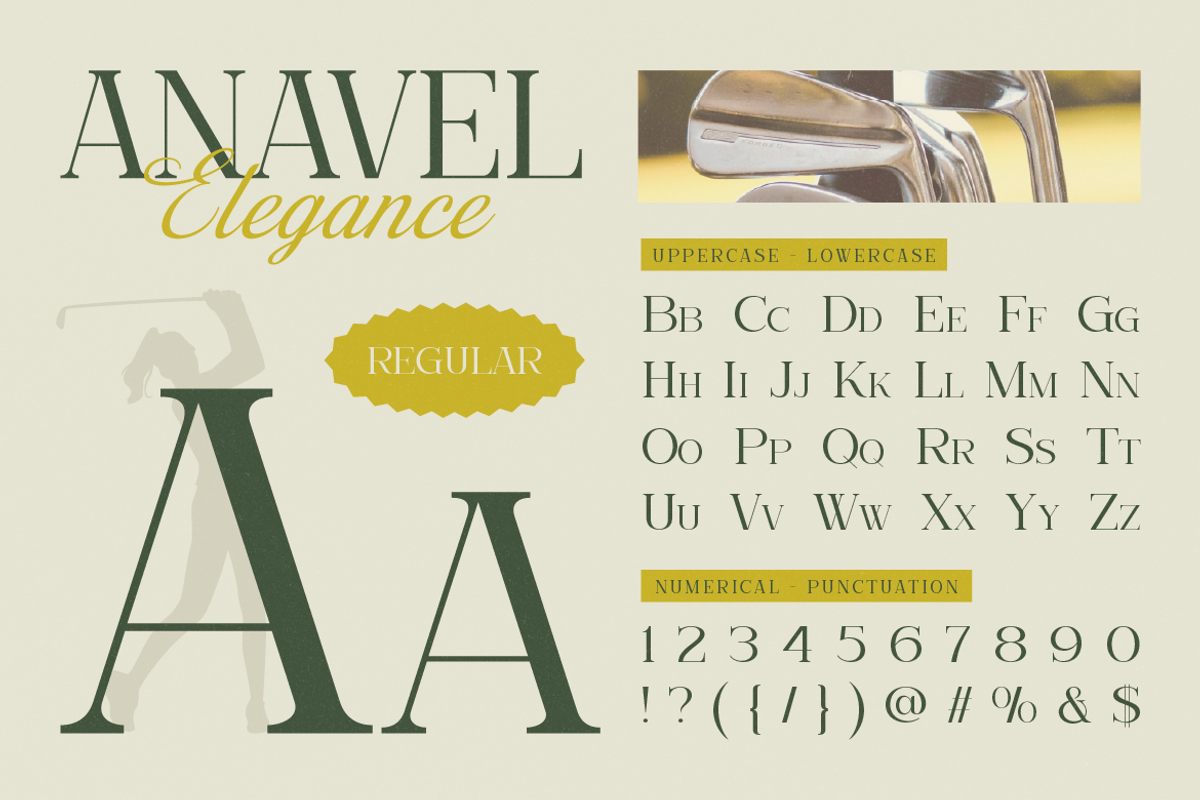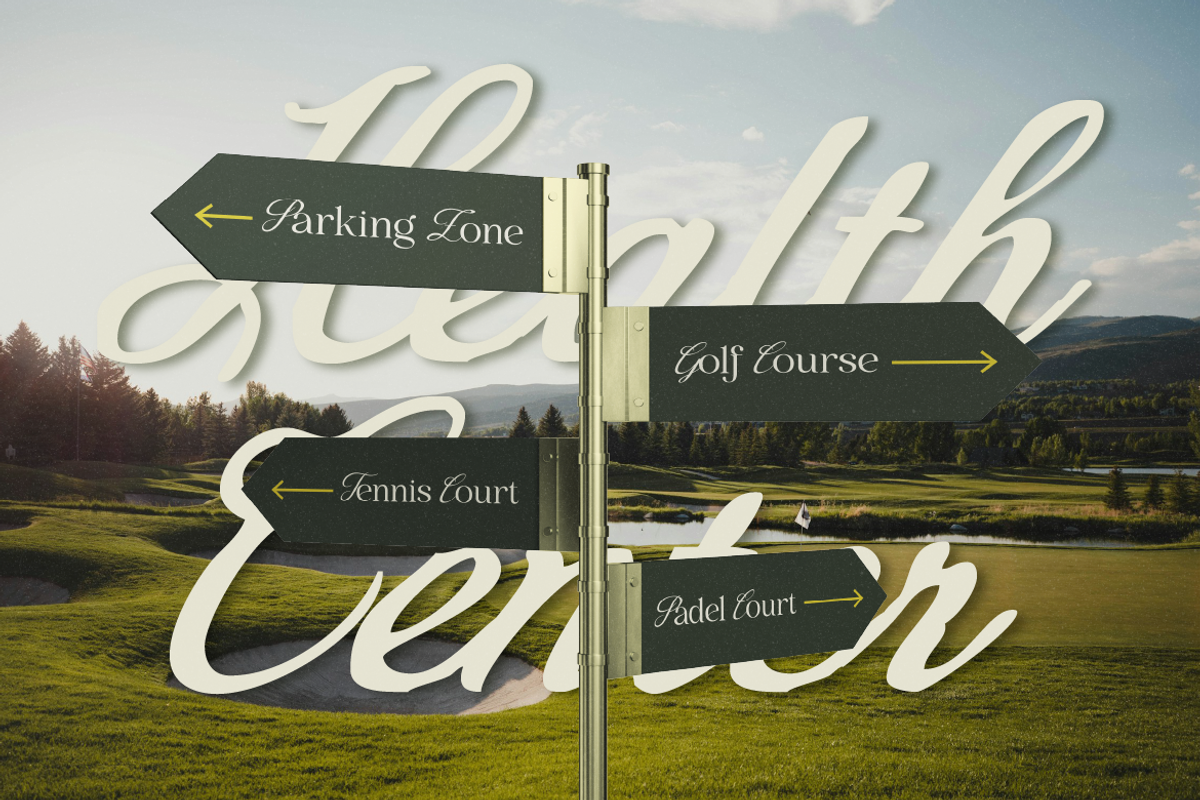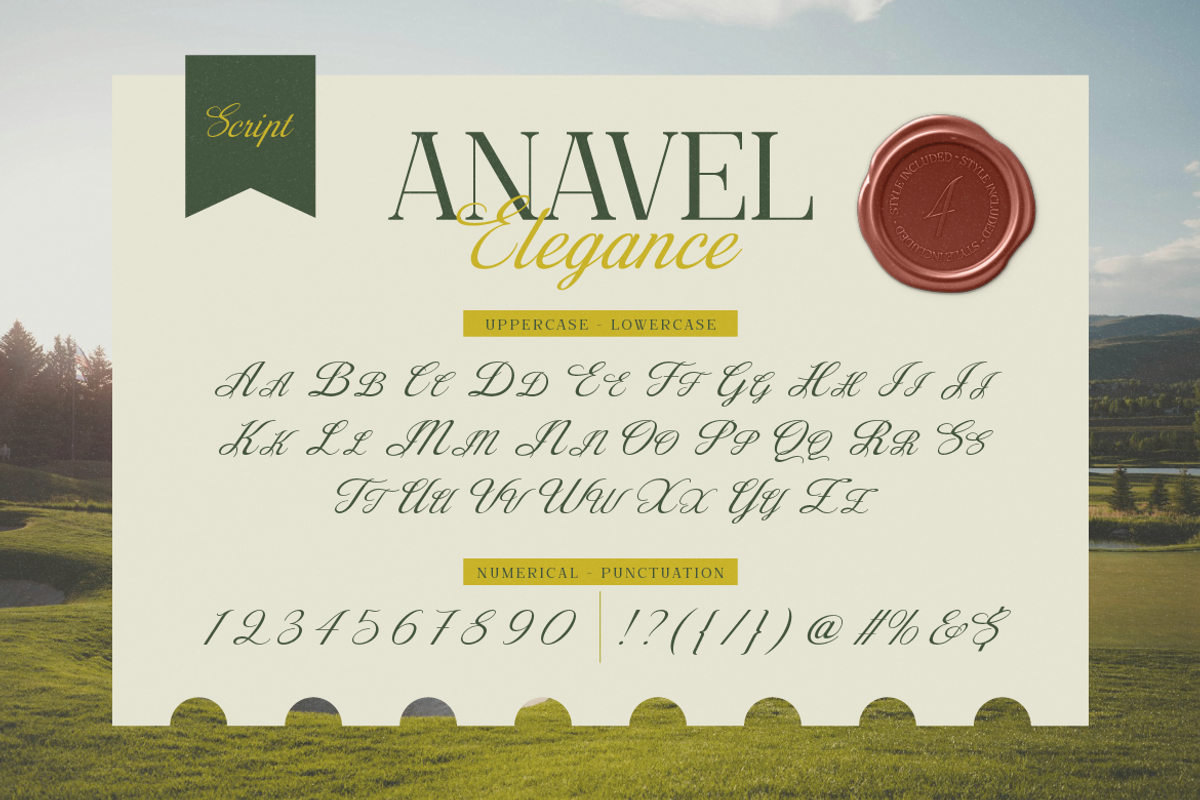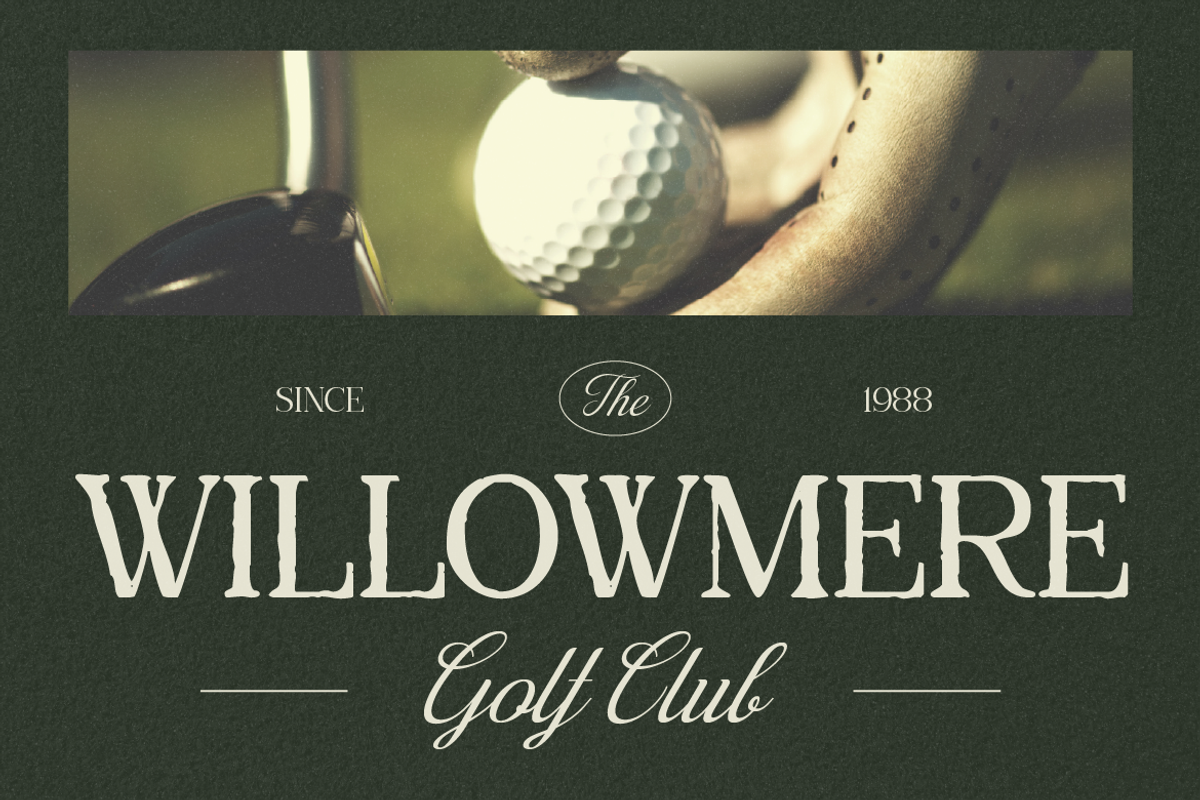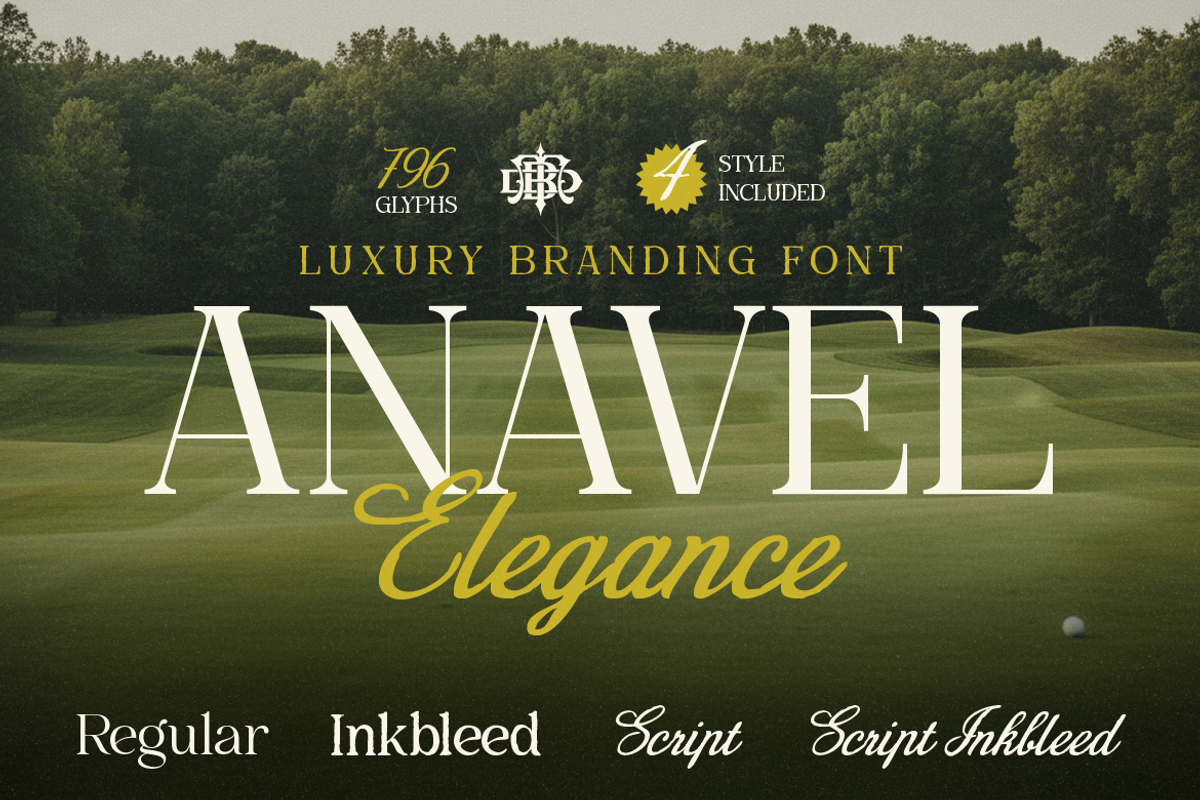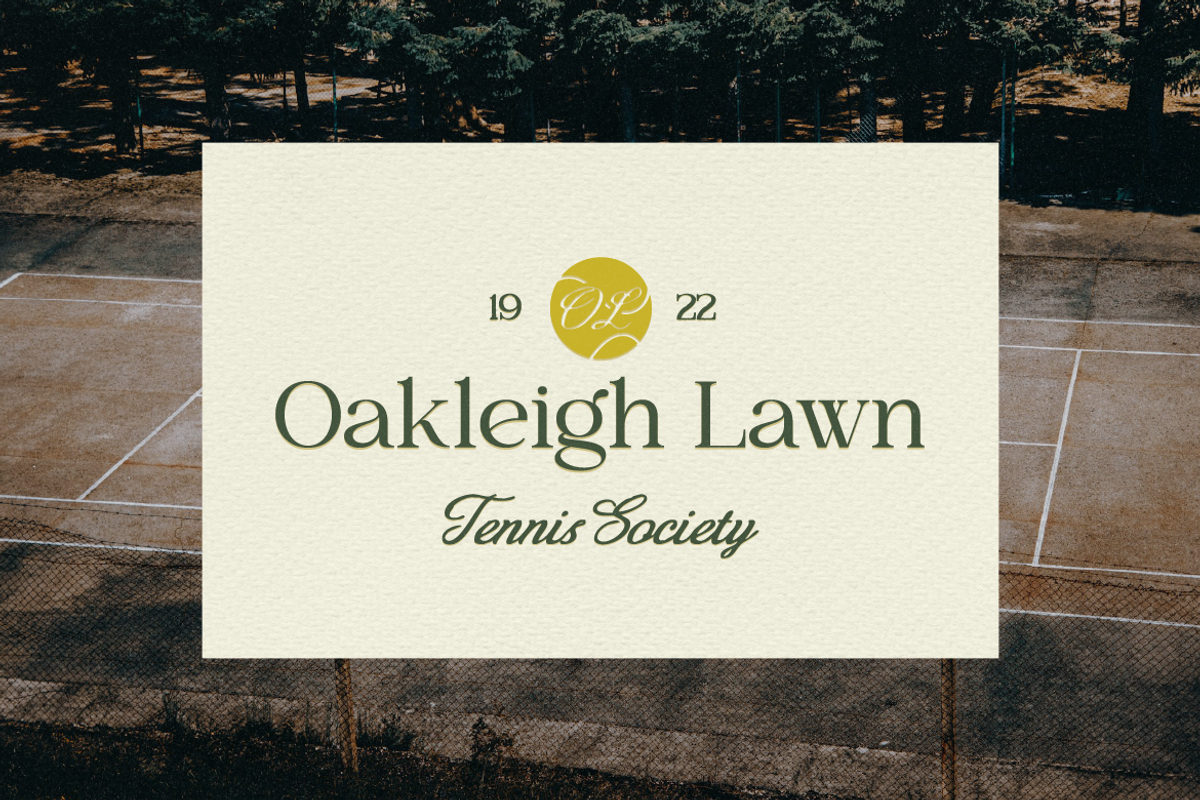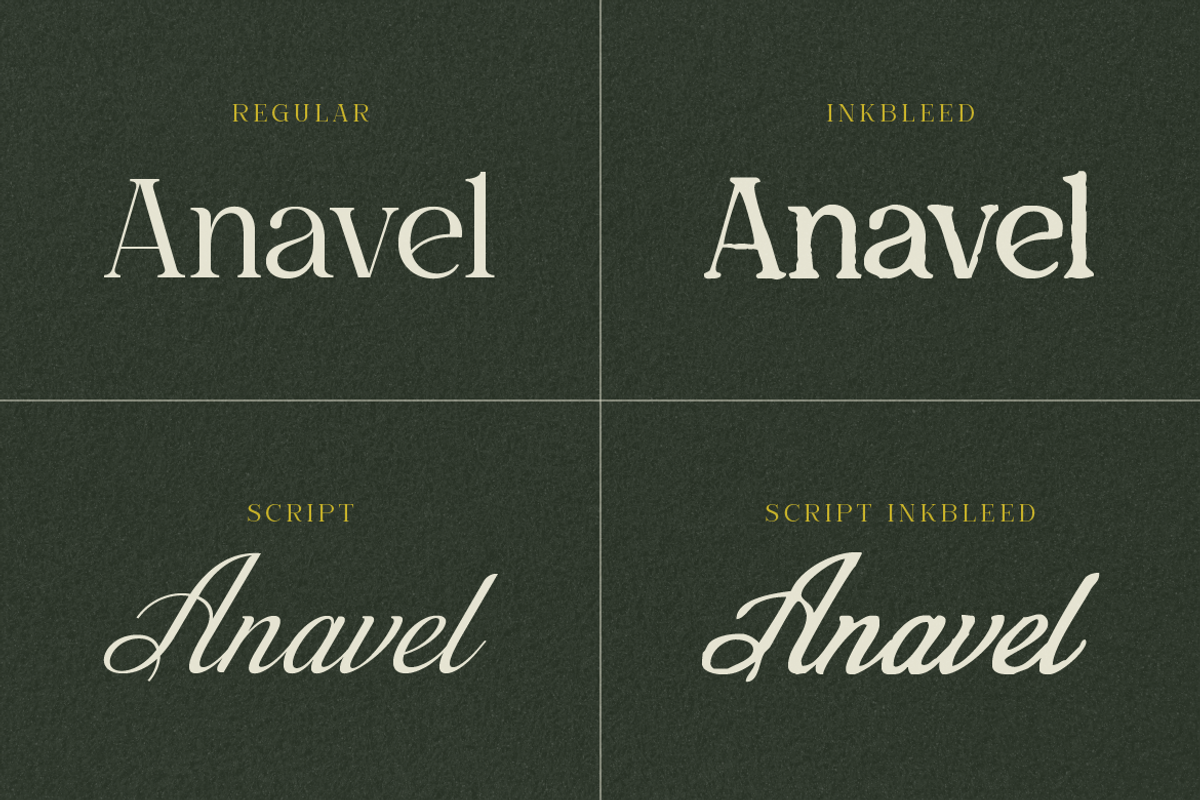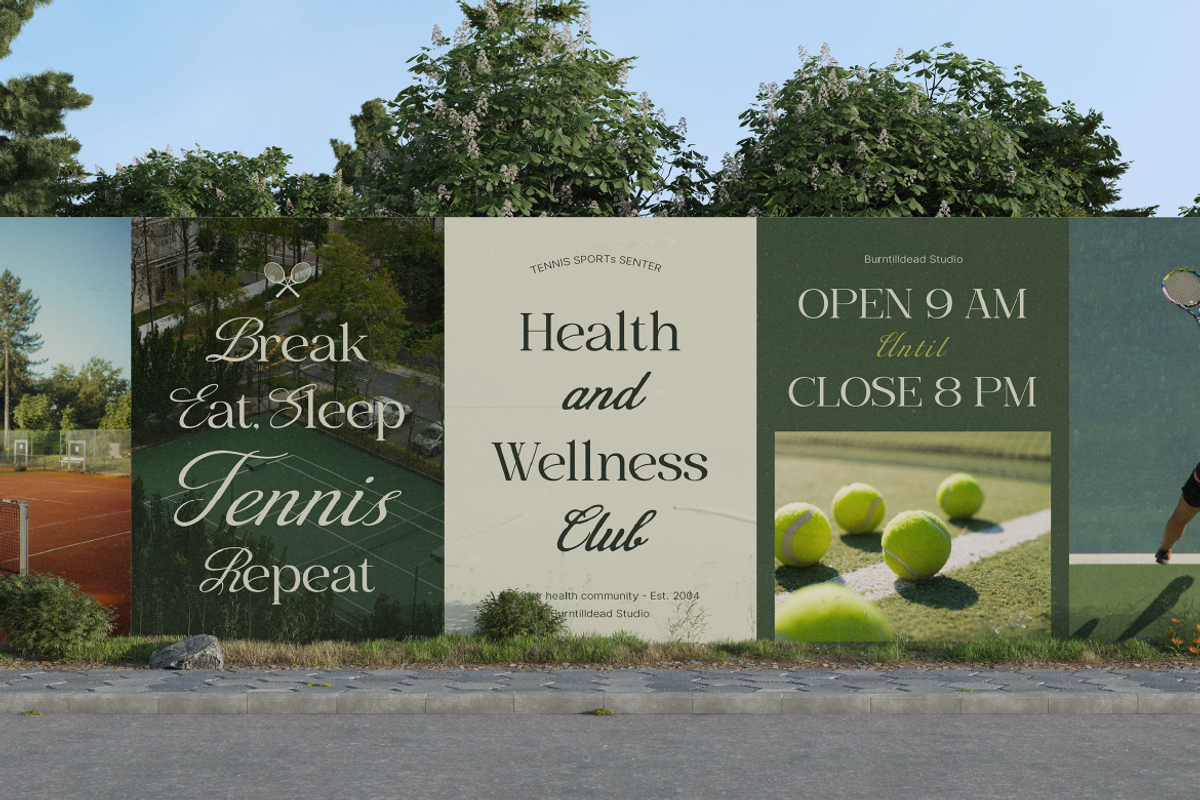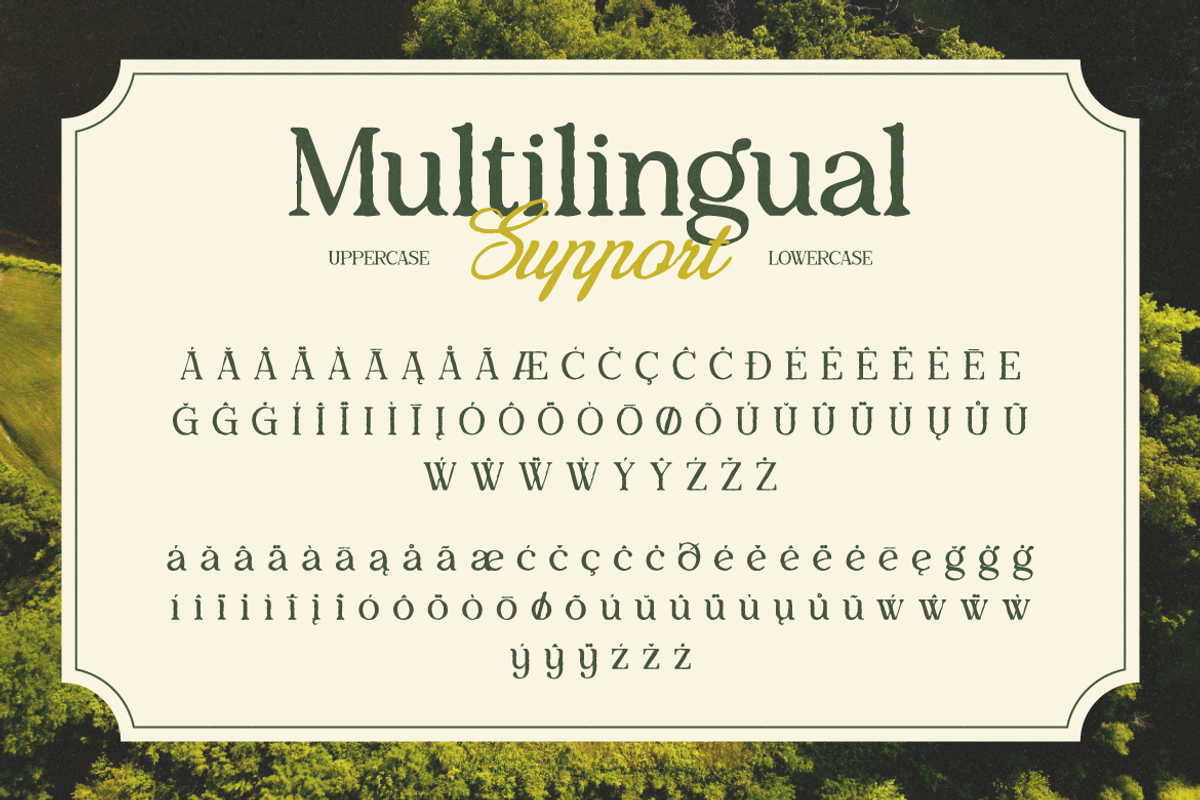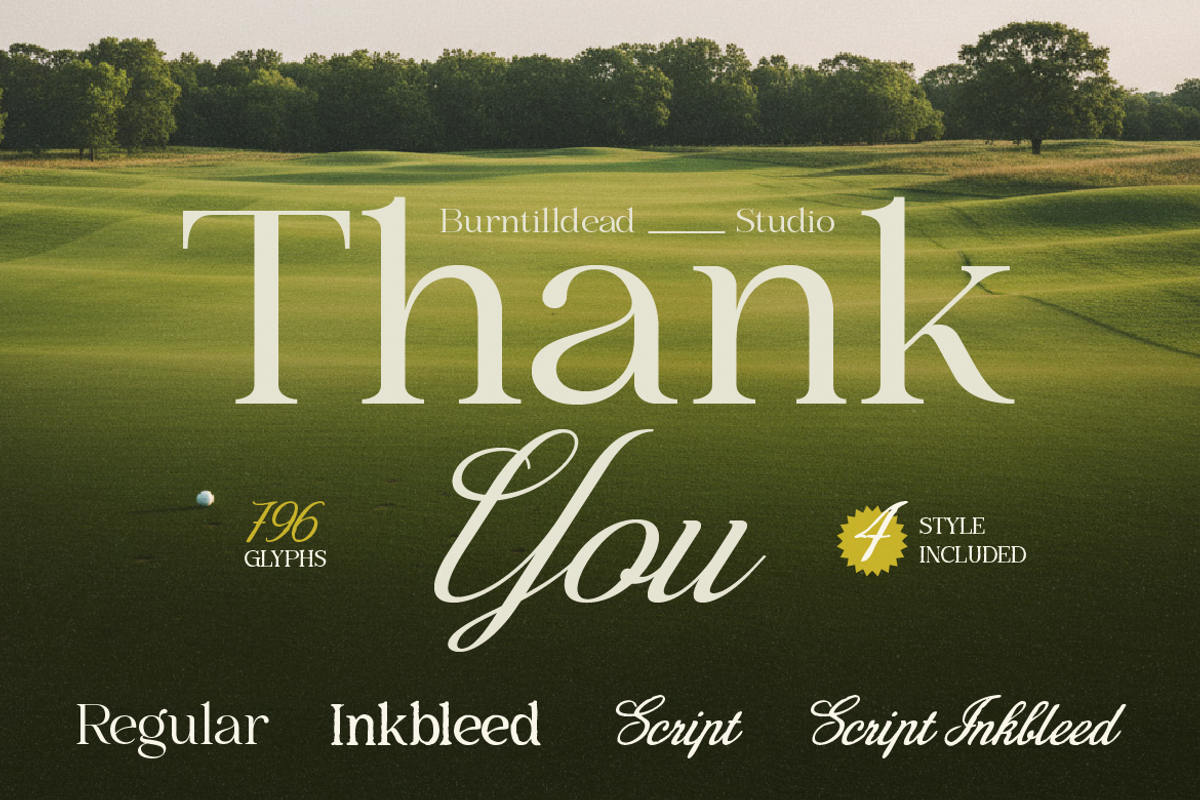
Anavel Elegance
Anavel Elegance is a luxury branding font that blends timeless serif beauty with graceful script charm. Designed to bring a premium and refined look, this font is perfect for high-end branding, editorial layouts, logos, and sophisticated packaging. With its elegant letterforms and stylish inkbleed options, Anavel Elegance helps your design feel more exclusive and professional. The combination of classic serif and flowing script makes it super versatile, whether you want something bold, soft, or beautifully romantic. This font comes with 4 styles included: regular, ink bleed, script and script inkbleed. Each style is carefully crafted to give you more creative freedom for luxury and lifestyle projects. Perfect for: luxury branding, fashion & beauty logos, editorial & magazine, wedding design, social media graphics, packaging design, premium business identity.